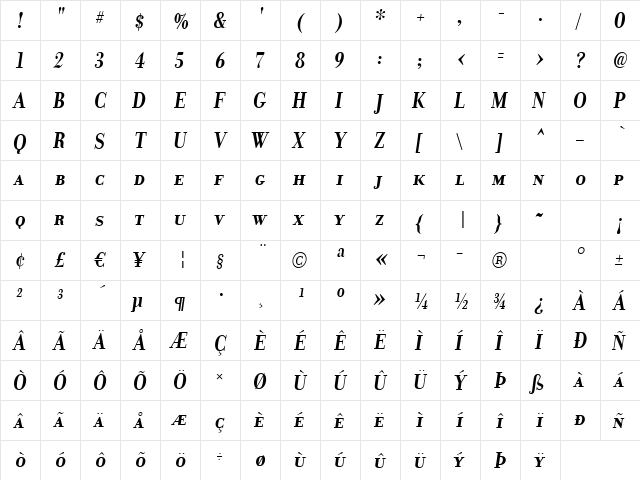
Design Context for Donatora Display SC Typeface
Donatora Display SC brings ornamental detail and strong personality to headlines and identities, where visual impact matters more than quiet functionality. The dynamic lean of this cut emphasises speed and emphasis in any layout. The heavy weight commands attention and anchors typographic hierarchies.
Font Pairing: Pair with a clean neutral sans-serif for body copy to let Donatora Display SC's character lead without overwhelming the composition.
Pro Tip: Treat Donatora Display SC as the centrepiece of your typographic hierarchy. One strong heading set in a decorative face can carry an entire layout.